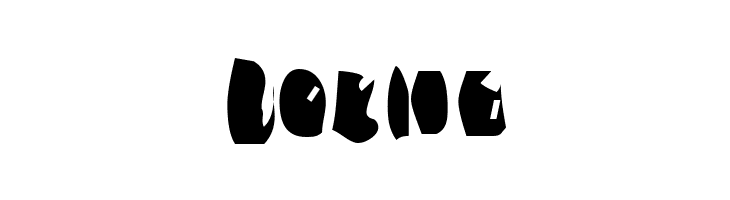
Gold Under The Mud Regular Font
- Font: Gold Under The Mud Regular
A bold, decorative font with blocky, geometric characters and low contrast.
( Fonts by Emerald City Fontwerks )